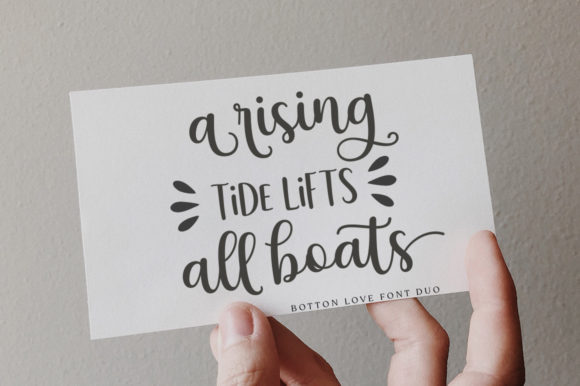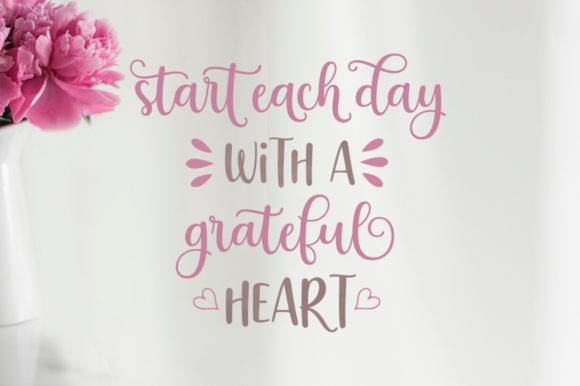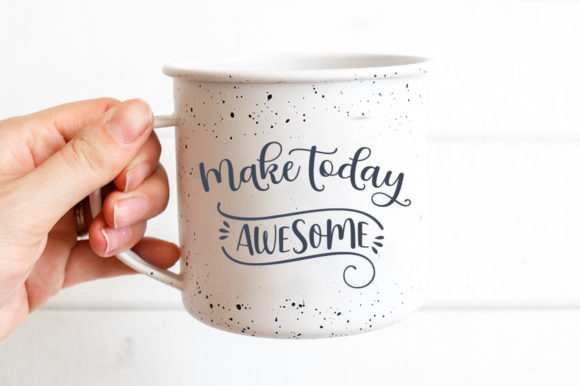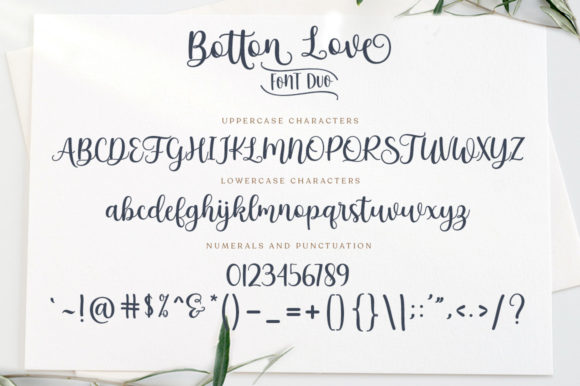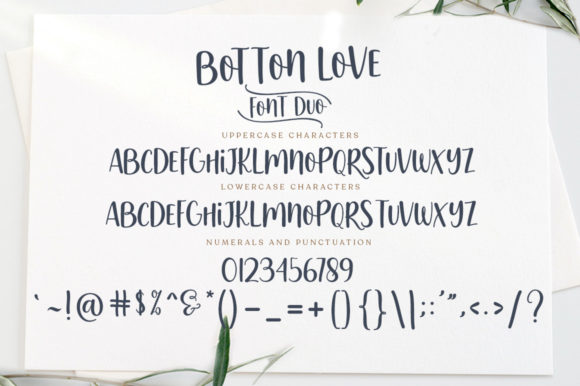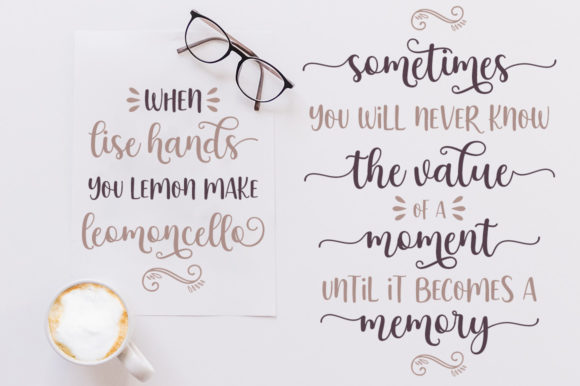
Introduction to Botton Love Duo Font
Botton Love Duo is a lovely and relaxed duo font (script and sans serif).
It looks fabulous on a variety of design ideas, such as cards, invitations, logos and so much more This font is PUA encoded which means you can access all of the glyphs and swashes with ease.
Key Features of Botton Love Duo Font